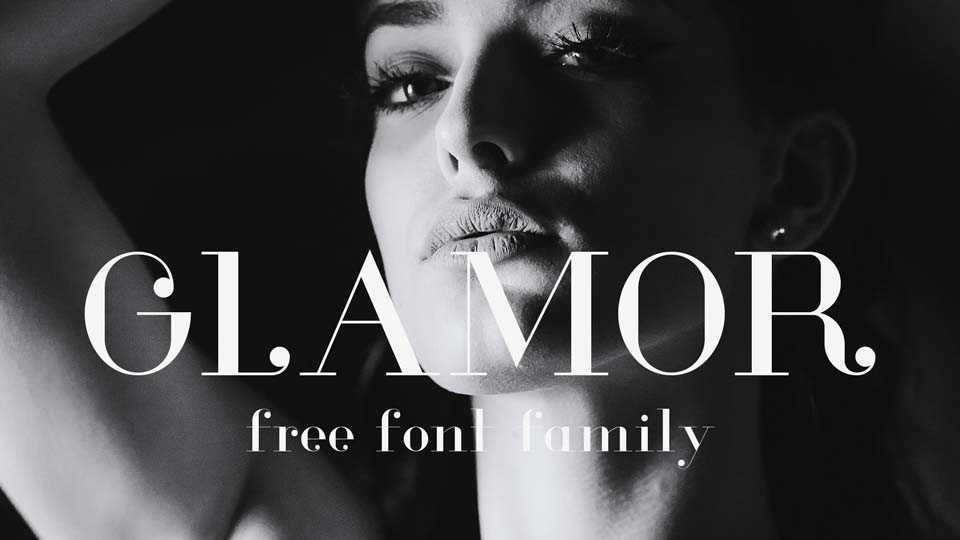
Download Glamor typeface, a chic and modern serif family of 24 fonts. Glamor perfectly suits for online/offline magazines and/or books, posters, photography, websites, branding & identity, TV spots and more.
Designer: Hendrick Rolandez